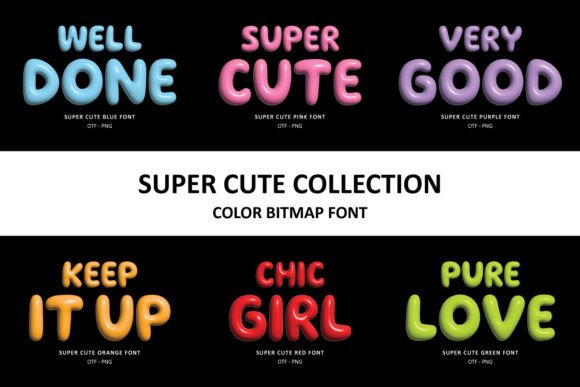
Super Cute Collection: 7 Sweet Color Fonts for Standout Projects
There are moments in a creative project when you need typography that does more than just communicate words. You need a typeface that carries an immediate, tangible personality—one that evokes a specific feeling before a single sentence is fully read. The Super Cute Collection is precisely that kind of design asset. It’s not a standard font family; it’s a curated set of seven color bitmap fonts, each featuring charming, rounded letterforms infused with eye-catching, sweet color palettes. Think of it as a visual shortcut to warmth, playfulness, and approachability.
Unlike traditional monochrome fonts, these are OpenType-SVG color fonts. This means the color and texture are embedded directly within the font file itself. When you type with the Super Cute Collection, you’re not just getting a shape; you’re getting a fully realized graphic element. The resolution is substantial—the capital letters in the OTF file render at approximately 750 pixels in height, making them ideal for medium to large-scale applications. For even larger projects, the included PNG files with transparent backgrounds offer a resolution of around 3000 pixels in height. It’s important to note the character set is focused: English uppercase letters A-Z, numbers 0-9, and basic punctuation. This specificity is part of its design logic, positioning it as a powerful display font for headlines, logos, and impactful one-off phrases rather than for body copy.
Where Sweet Typography Makes a Real Impact
The true value of a creative font like the Super Cute Collection lies in its practical application. Its rounded, soft geometry and built-in color make it a standout choice for projects where you want to establish an instant connection with a friendly, youthful, or whimsical audience. Consider these scenarios:
- Brand Identity & Logo Design: For a small business, bakery, children's boutique, or pet grooming service, this font can become the cornerstone of a memorable logo. It communicates approachability and fun without needing additional illustration.
- Packaging Design: On product labels, especially for artisanal goods, cosmetics, or snacks, the Super Cute Collection can highlight product names or key features, making the package pop on a shelf or in a digital storefront.
- Marketing & Social Media Graphics: In the fast-scrolling world of social media, these fonts act as scroll-stoppers. Use them for Instagram story headers, Pinterest pin titles, or Facebook ad headlines to grab attention instantly. They’re also perfect for creating consistent, branded templates for quotes or announcements.
- Editorial & Web Design: While not for body text, they are excellent for chapter titles in a children’s e-book, a fun header on a blog post about DIY crafts, or a special section title in a digital magazine.
- Physical Products & Crafts: The applications for crafters and entrepreneurs are vast. Design unique T-shirts, phone cases, tote bags, mugs, stickers, and tumblers. The high-resolution PNGs are particularly useful for print-on-demand services or for crafting with a cutting machine.
Integrating the Super Cute Collection into Your Design Workflow
Adopting a specialty font like this requires a thoughtful approach to ensure it enhances, rather than overwhelms, your project. Here’s how to work with it effectively.
Evaluating Fit and Testing Pairings
First, assess the project’s overall tone. The Super Cute Collection is a premium font with a strong personality. It’s perfect for brands that want to feel energetic, nostalgic, or sweetly charming. It might not be the right fit for a law firm or a luxury automotive brand, but it’s ideal for a cupcake shop, a toy store, or a podcast about pop culture.
Because it is a bold display typeface, pairing is crucial. It needs a contrasting partner for any supporting text. A clean, neutral sans serif font is often the safest and most effective choice. Think of fonts like Montserrat, Lato, or Open Sans for body copy, product descriptions, or website navigation. This creates a clear visual hierarchy: the Super Cute Collection draws the eye for key information, while the sans serif ensures readability for longer text. Avoid pairing it with other highly decorative script fonts or detailed serif fonts, as this can create visual clutter.
Readability and Practical Considerations
Always conduct a readability test at the intended size. Since these are color bitmap fonts, they can become muddy if scaled down too small, as the color details may not render clearly. Use them for titles, headers, and short phrases where the letterforms can be appreciated. On digital screens, ensure there is sufficient contrast between the font’s colors and the background. For print, a test print is always recommended to verify color accuracy.
Remember the character limitations. Plan your copy accordingly. If your headline requires a lowercase letter or a special symbol not in the set, you’ll need to find an alternative solution, perhaps by using a different font for that specific word or redesigning the phrase.
Leveraging the Full Asset Package
The value of the Super Cute Collection extends beyond the seven OTF files. The included bonus PNG files are a significant part of the design assets. Use these transparent PNGs in graphic design software like Canva, Adobe Photoshop, or Illustrator to incorporate the letterforms into more complex compositions. You can layer them, add effects, or combine them with other imagery—flexibility that a standard font file doesn’t offer.
In a landscape saturated with generic modern typography, the Super Cute Collection offers a distinct and practical solution. It’s a tool for designers, marketers, and creators who understand that sometimes, the most effective way to communicate is with a touch of sweetness and a whole lot of character. By integrating it thoughtfully, you can elevate your projects from simply designed to genuinely engaging.